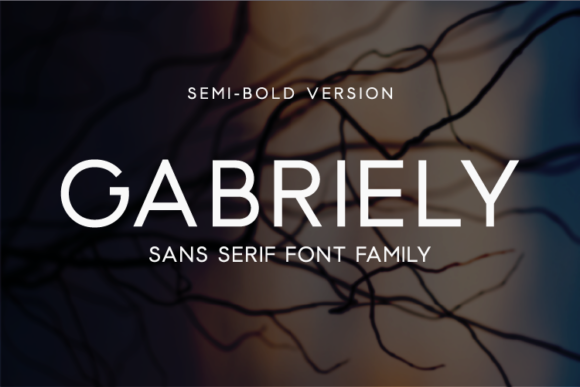
Introduction to Gabriely Semi Bold Font
Gabriely is a clean, modern sans serif typeface that has been passionately designed with great attention to detail.
An essential font and a great asset to own, Gabriely will give any project a simplistic and timeless look .